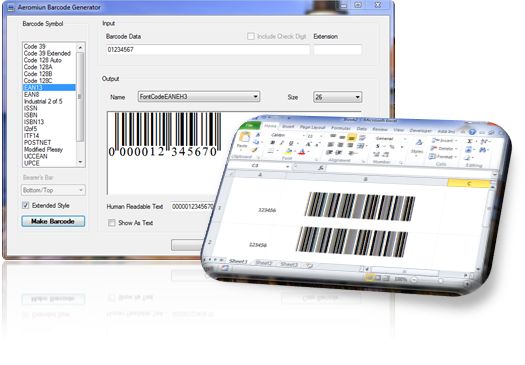
Aeromium is a set of premium barcode fonts.
Aeromium Barcode Fonts is a set of high quality, professional and premium barcode fonts for your organization. Each of the fonts has been carefully developed and crafted to ensure maximum scannability and readability. The barcodes supported are used and adopted commonly in many industries. All the barcode fonts have been designed to meet strict industry specifications, including the latest SUNRISE requirements.
Barcodes Supported
Code39 Barcode - One of the most widely used Barcode
Code39 Extended Barcode - Extended Code 39 with Full ASCII support
Code 128 Barcode - High Density Barcode. Automatic Subset Switching
Code128 A Barcode - Code128 subset optimized for uppercase alphabets and numbers
Code128 B Barcode - Code128 subset optimized for uppercase alphabets, lowercase alphabets and numbers
Code128 C Barcode - Code128 subset optimized for numbers
UCCEAN Barcode - Worldwide format for exchanging data. Supports all Application Identifiers
Industrial 2of5 Barcode - Numeric only Barcode
I2of5 Barcode - Interleaved 2 of 5 high density Barcode for numbers
ITF14 Barcode - I2of5 with Bearers Bar
Modified Plessy Barcode - Numeric only Barcode based on the original Plessy symbology
POSTNET Barcode - US Postal
UPCA Barcode - Universal Product Code version A
UPCE Barcode - Universal Product Code version E
EAN13 Barcode - European Article Numbering 13
EAN8 Barcode - European Article Numbering 8
ISBN Barcode - International Standard Book Number
ISSN Barcode - International Standard Serial Number
EXT2 Barcode - UPCEAN Extension 2
EXT5 Barcode - UPCEAN Extension 5